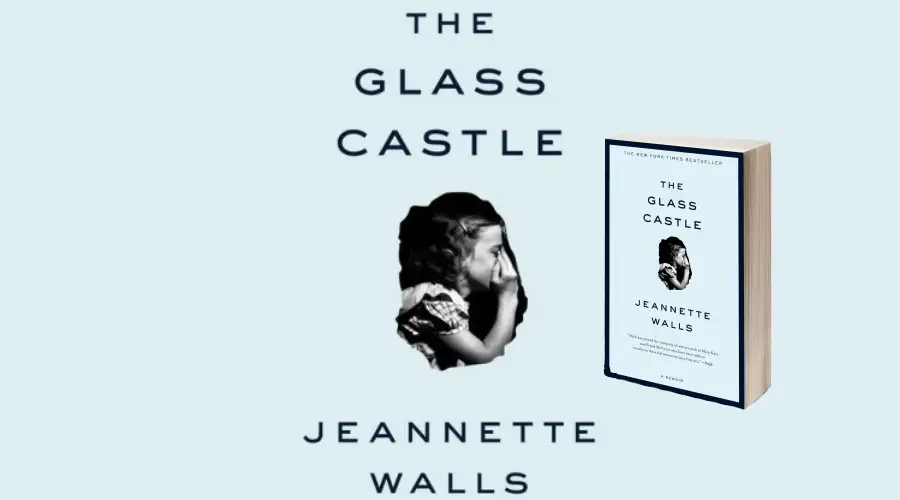
The Glass Castle Font is a bold and striking typeface associated with Jeannette Walls’ memoir, The Glass Castle. The book’s title likely uses Sackers Gothic Heavy, a robust sans-serif font designed by Monotype in 1994. This font delivers a modern, industrial aesthetic, making it perfect for impactful headlines and branding.
Sackers Gothic Heavy by Monotype The closest match used in the original logo.
ITC Blair Pro Medium by ITC A clean, bold alternative with a similar structure.